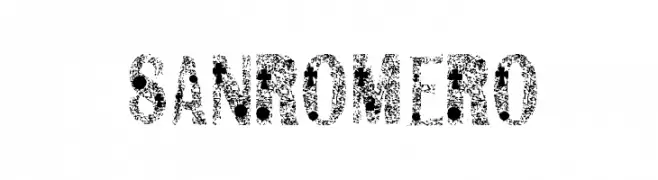
( Fonts by pheist.net - Stefanie Koerner )
A distressed, grungy font with bold and textured characters.
( Fonts by Cannot Into Space Fonts )
A distressed serif font with a fragmented, aged appearance.
( Fonts by Chris Vile )
A bold, distressed italic font with a rugged, grunge aesthetic.
( Fonts by junkohanhero )
A distressed, vintage-style font with bold, textured characters.
( Fonts by Scarlet Reyes )
A bold, distressed font with a grunge texture and irregular edges.
A bold, distressed font with a rugged, vintage texture.
A bold, distressed font with a vintage, textured style.
A bold, distressed font with a rugged, vintage aesthetic.
( Fonts by Galdino Otten - galdinootten.com )
A bold, distressed font with a vintage Western feel.